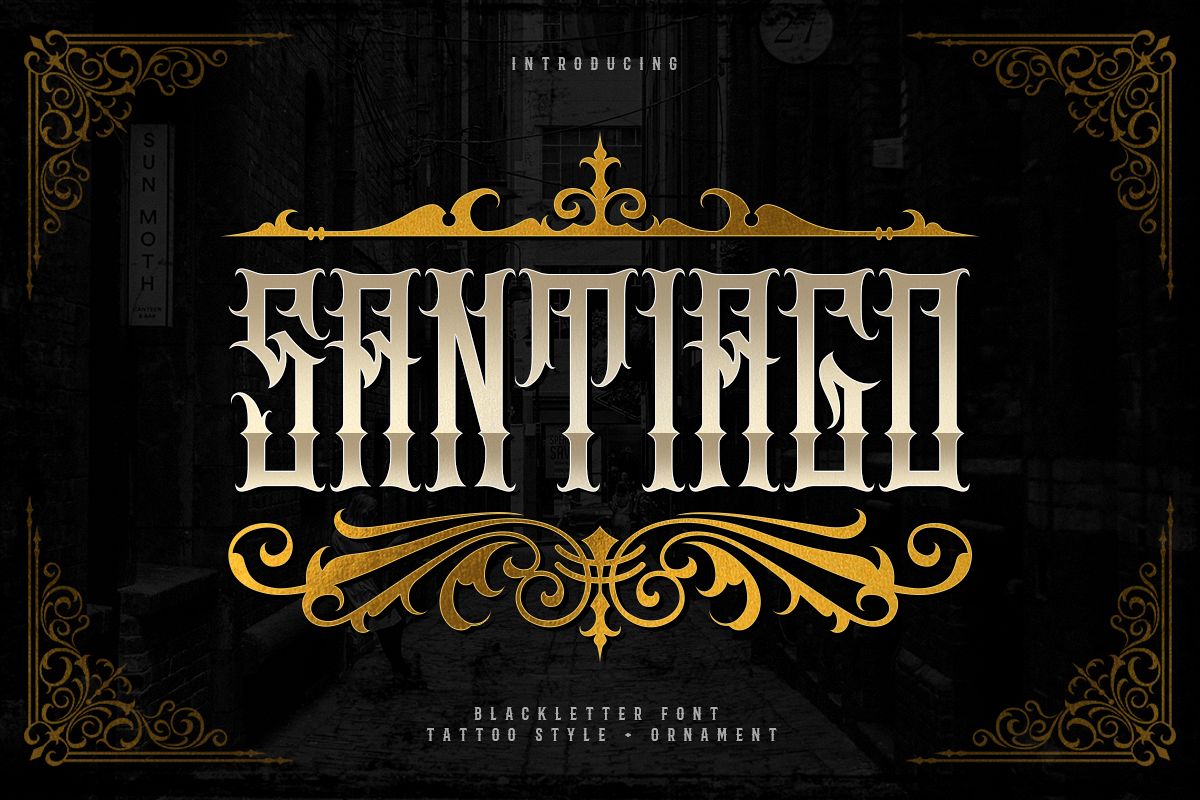
Santiago
Introducing of our new product the name Santiago Font. Blackletter with Tattoo style + ornaments perfect for tattoo design, logo studio tattoo, shirt design,poster, branding, etc.
You can access the Ornament with _1 _2 _3 _4 _5 _6